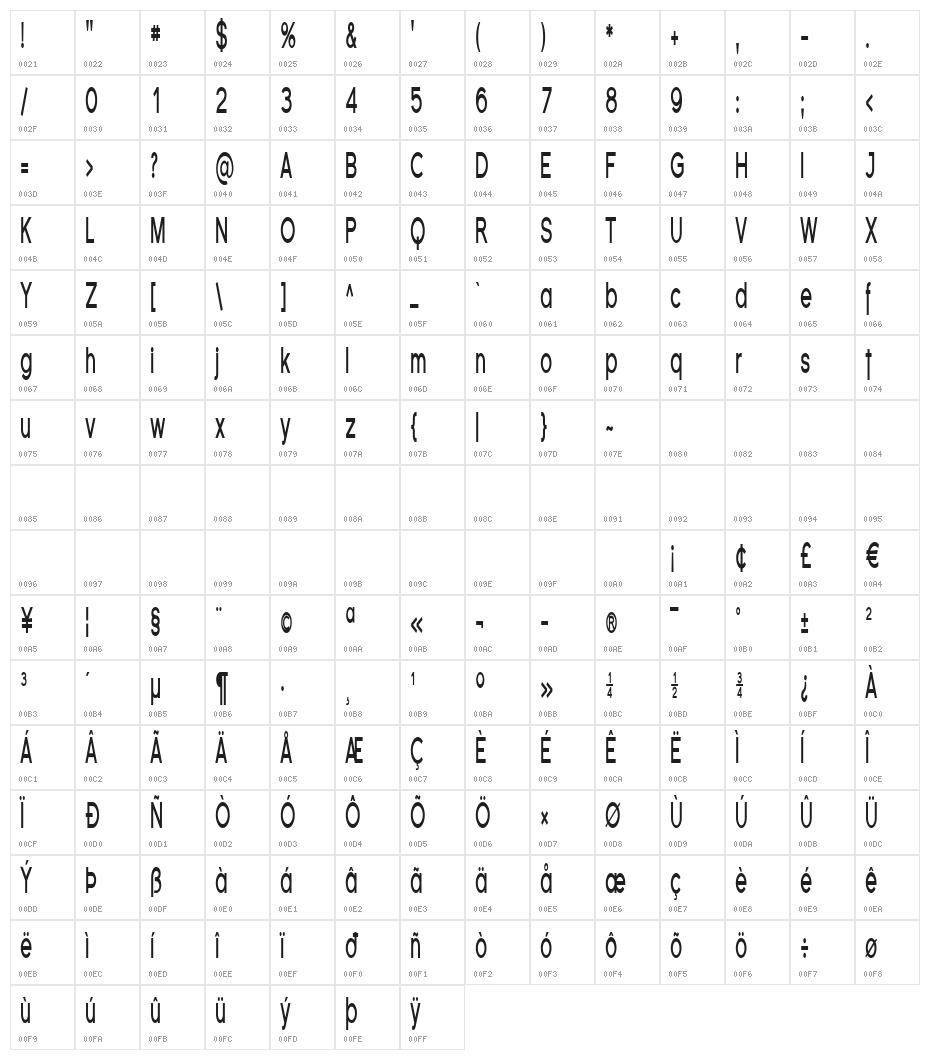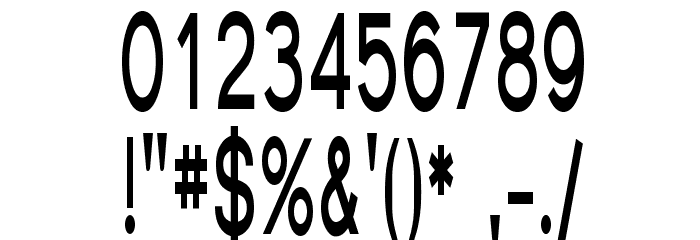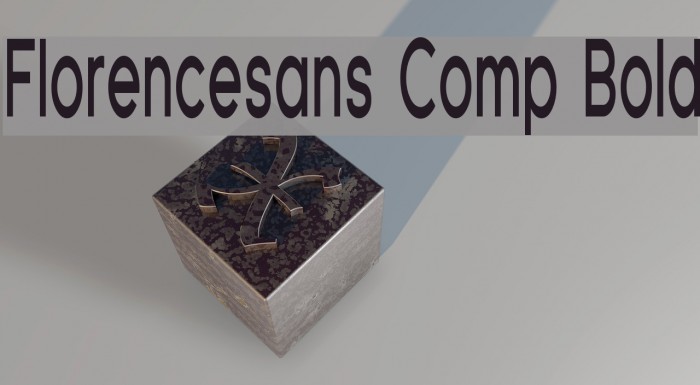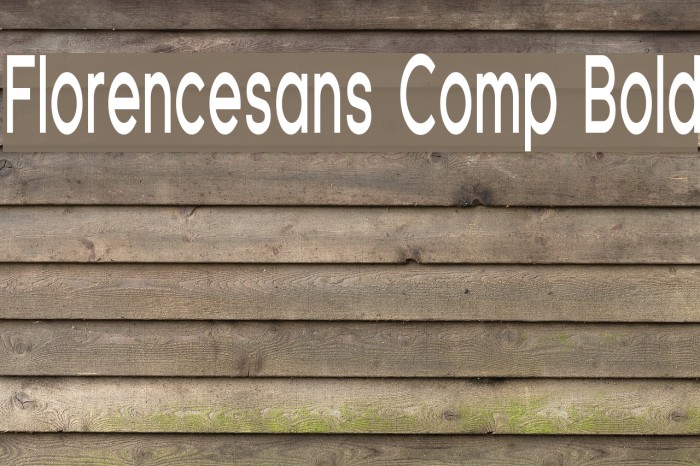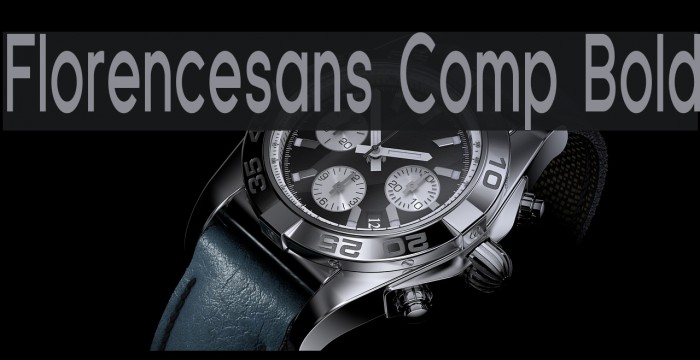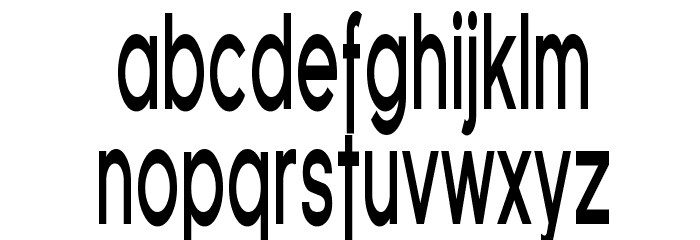
Florencesans Comp Bold Font
Florencesans Comp Bold Description
This font exhibits a bold and compact design, characterized by its clean and modern sans-serif style. The letters are uniformly thick, providing a strong and assertive appearance. The uppercase and lowercase letters maintain a consistent height, contributing to a harmonious and balanced look. The numerals are clear and easily readable, matching the overall boldness of the alphabet. Special characters are well-defined, ensuring versatility in various applications. The font's compact nature makes it suitable for tight spaces while maintaining legibility.
| Proposed Projects | Ideal for branding, headlines, posters, and any design requiring a strong, modern typeface. |